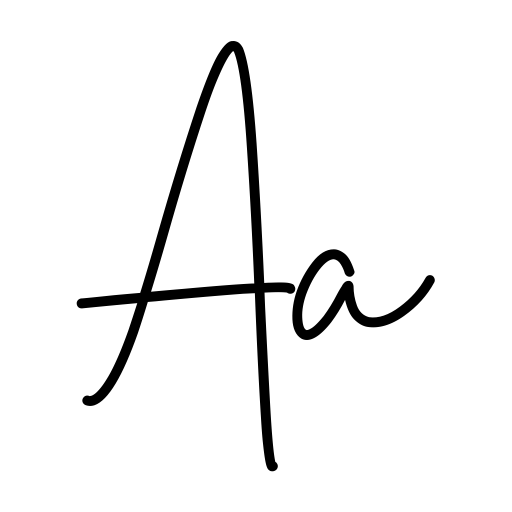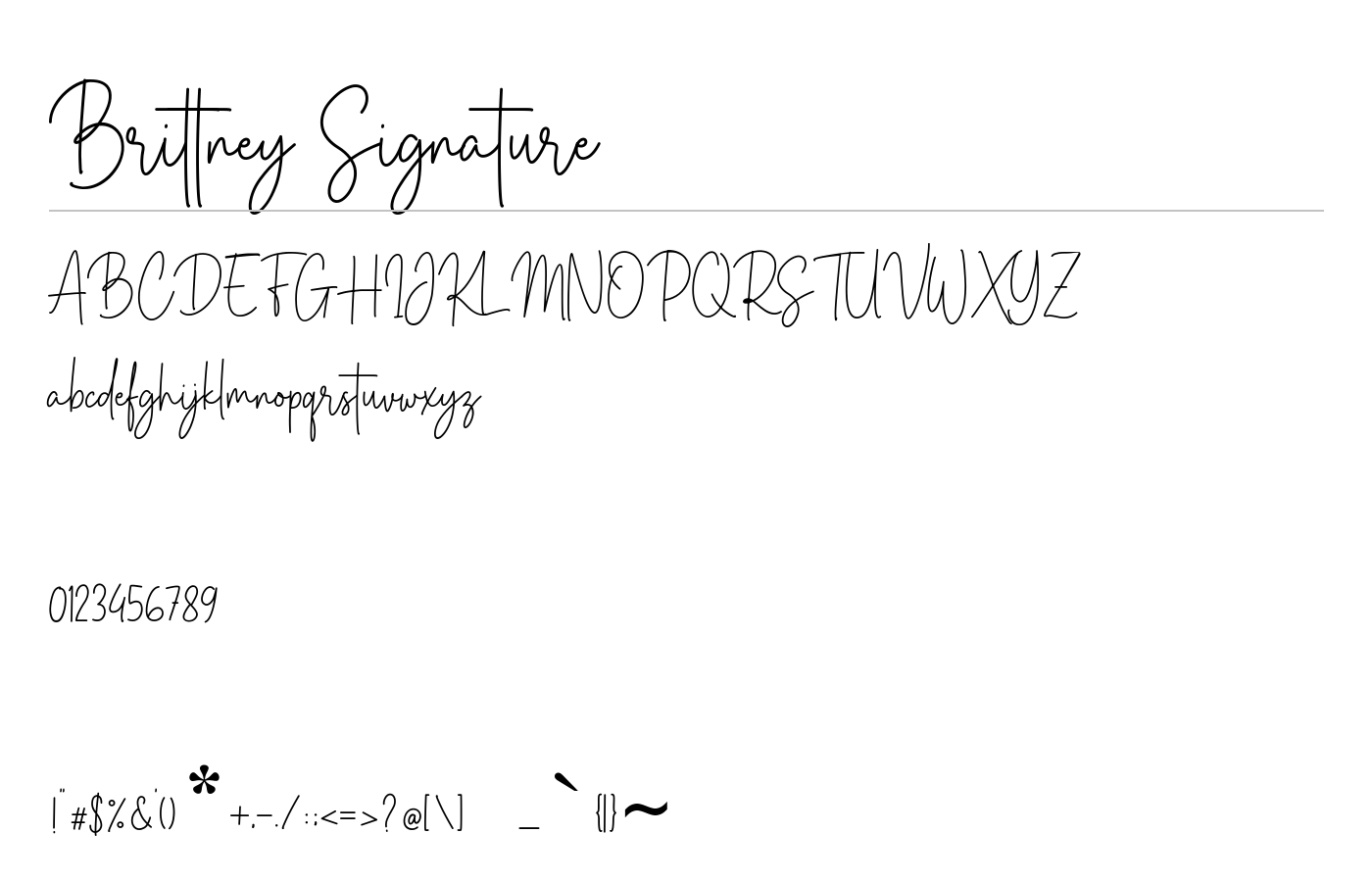
Brittney Signature is a delicate, handwritten script font with a tall, slender appearance and smooth, flowing lines that mimic natural pen strokes. Its light weight and airy spacing create an elegant, personal feel, perfect for branding, invitations, and stylish headlines where a soft, approachable touch is desired. This font works well in contexts where a refined yet casual signature style adds warmth and personality.
Brittney Signature Font
About Brittney Signature Font
| Font family | Brittney Signature Font |